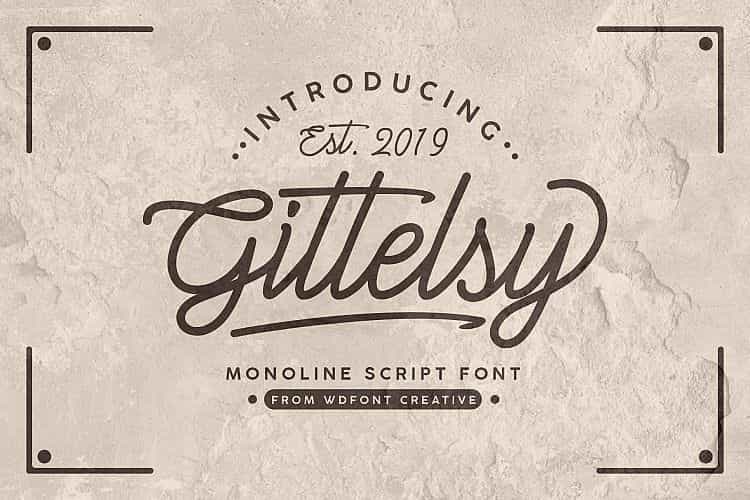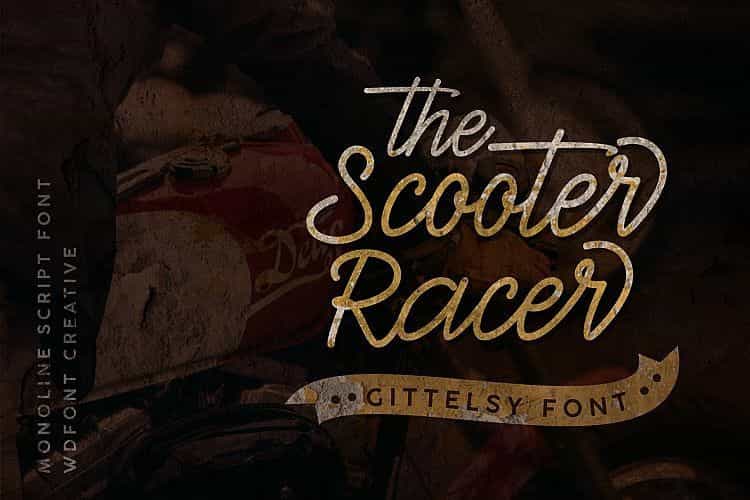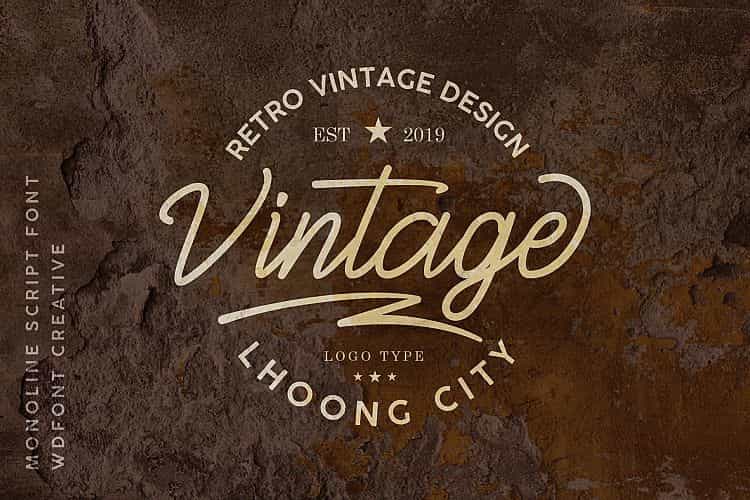
Introducing Gittelsy Font. A new fabulous & modern script with a handmade calligraphy style is coming. It was created and shared by wdfont. Gittelsy Monoline Script Font is a font with the modern monoline style and very suitable for your daily use.